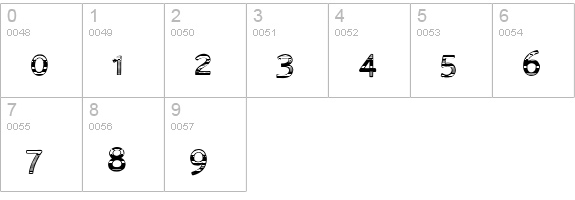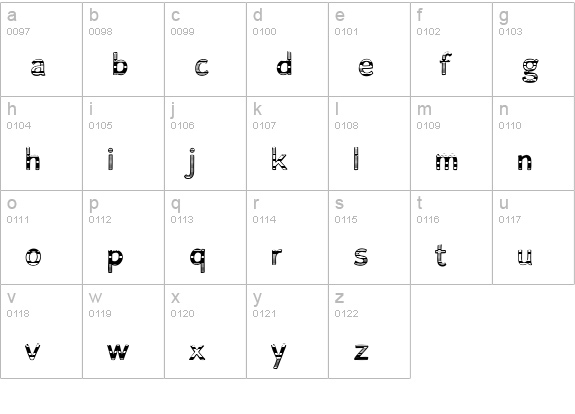
AlumFreePromotional Font Details
AlumFreePromotional font is a versatile and modern typeface that will enhance any promotional material with its sleek and professional look. This font features clean lines and a contemporary style that is perfect for a wide range of design projects, from advertising to branding. The best part? AlumFreePromotional is available for free download at FontsMarket.com, making it easily accessible to designers and creatives looking to add a touch of sophistication to their work without breaking the bank. With its bold yet elegant design, AlumFreePromotional is sure to make a lasting impression on your audience and elevate your designs to the next level.